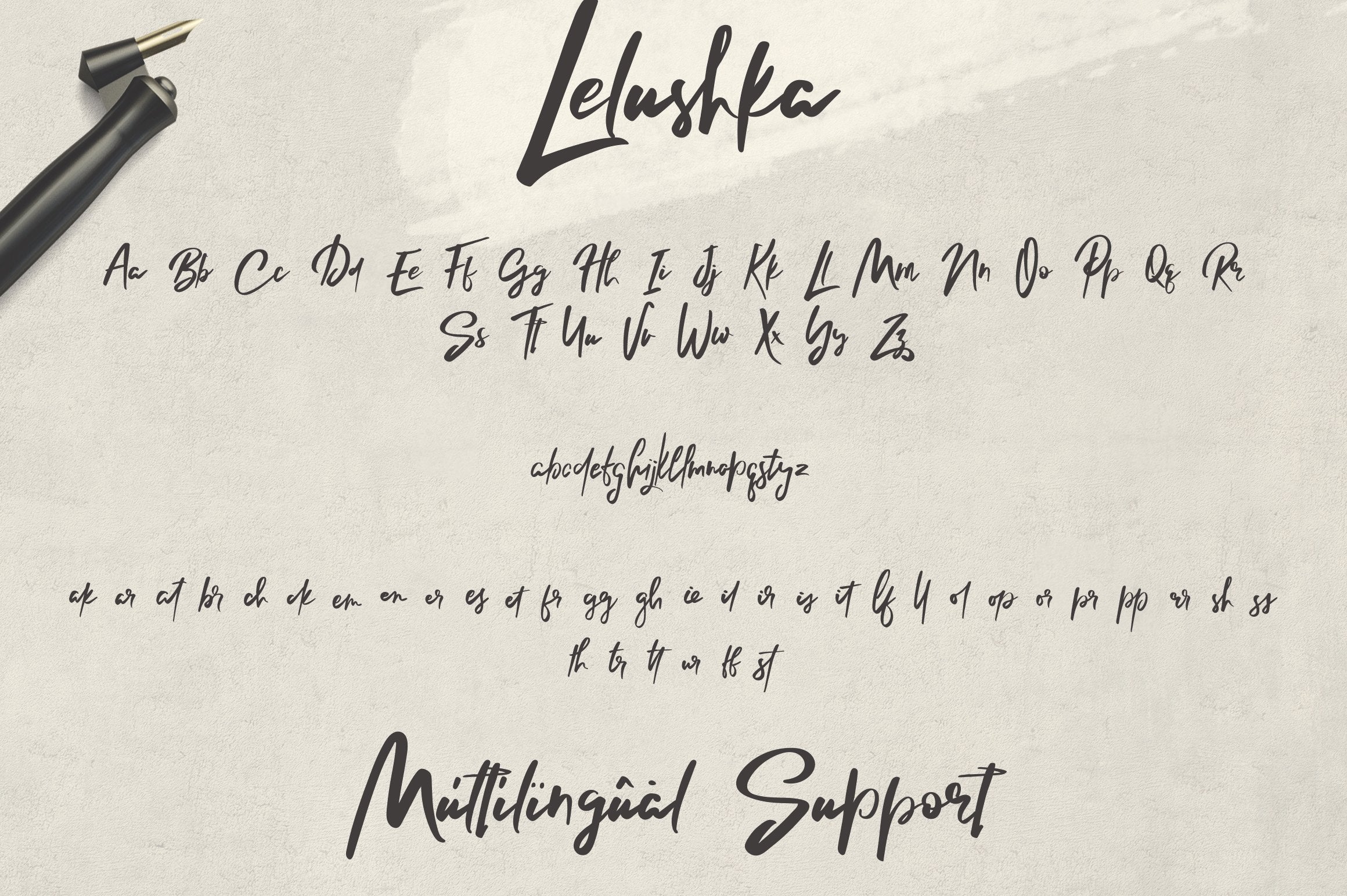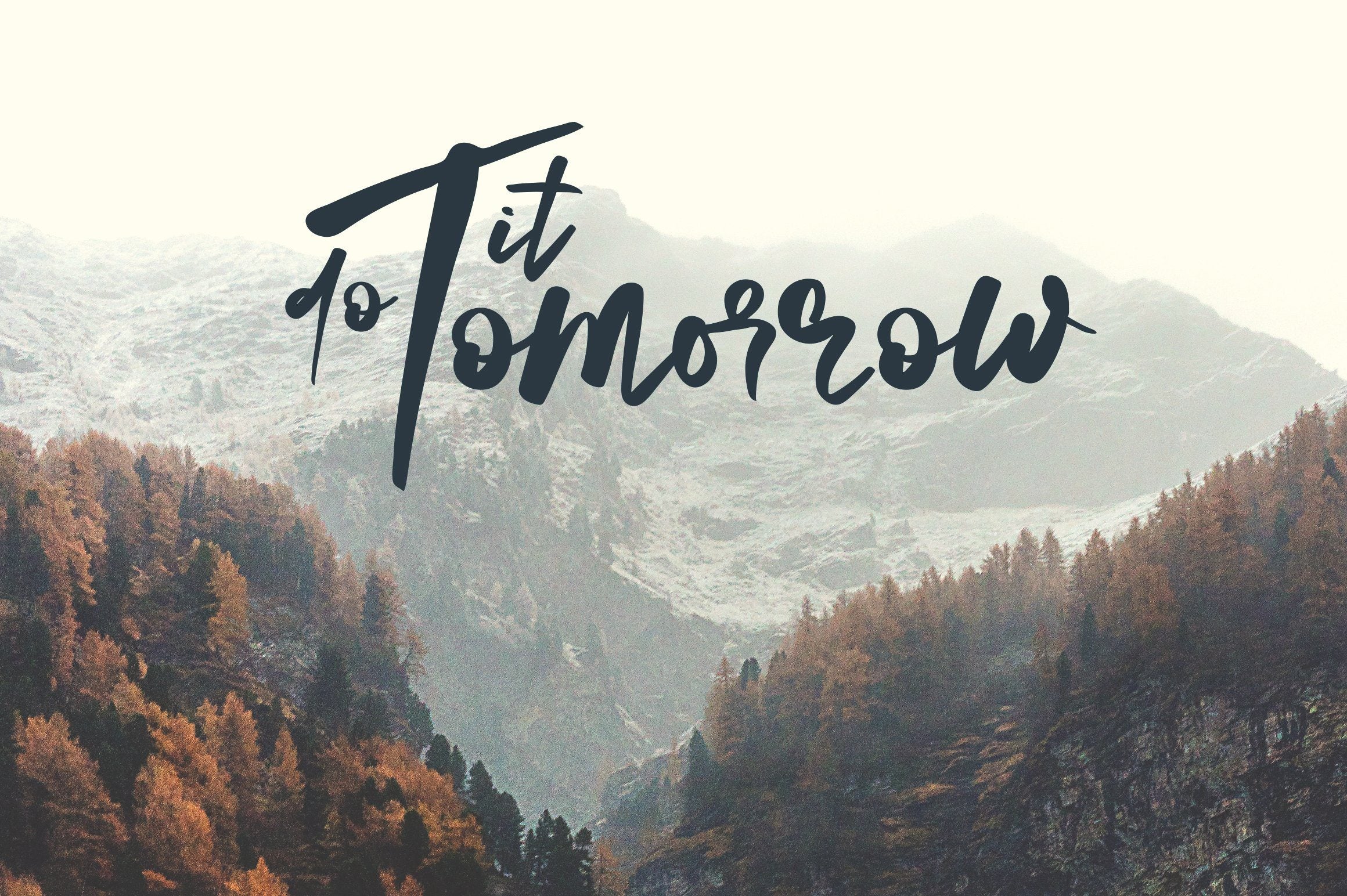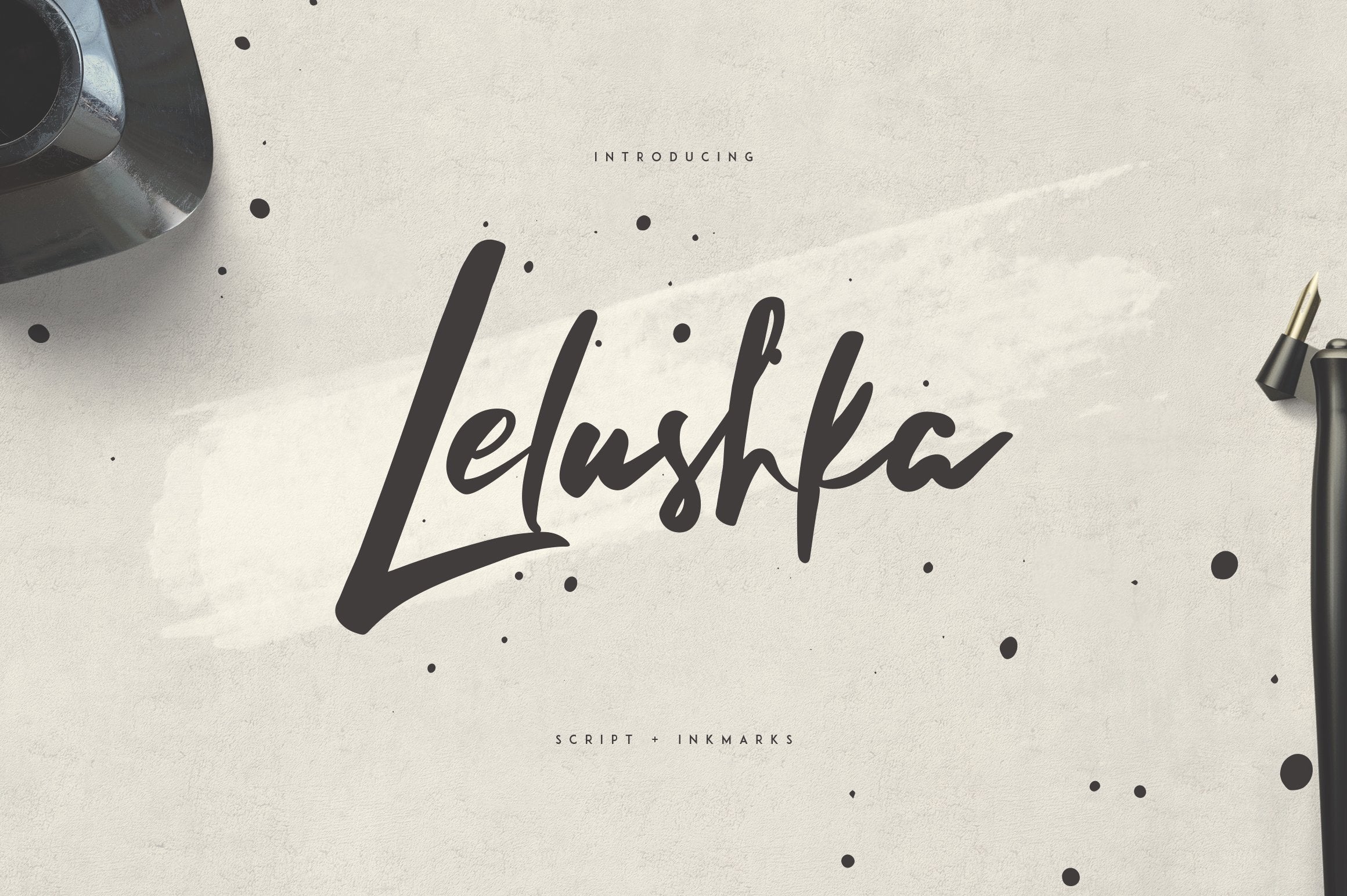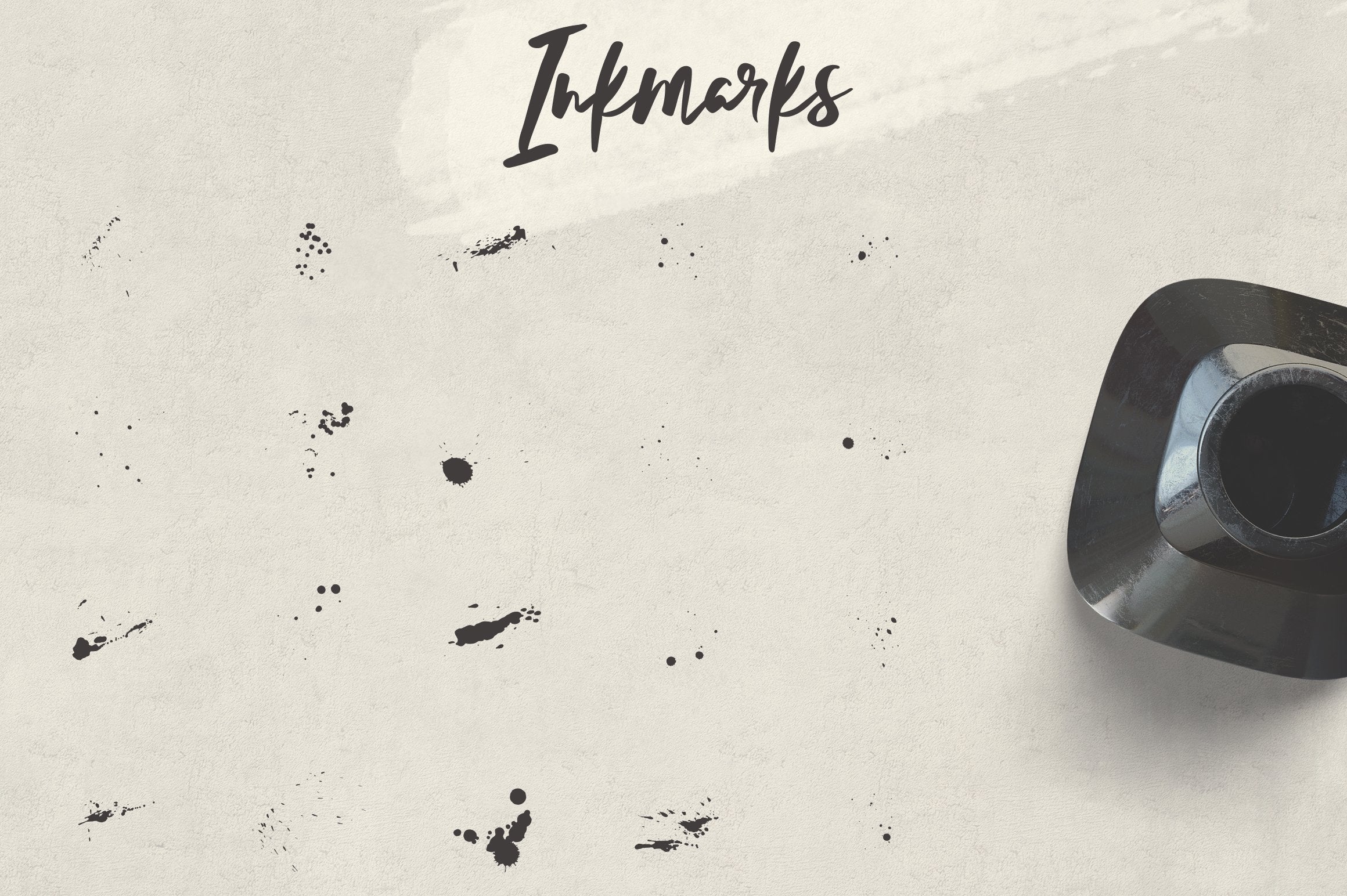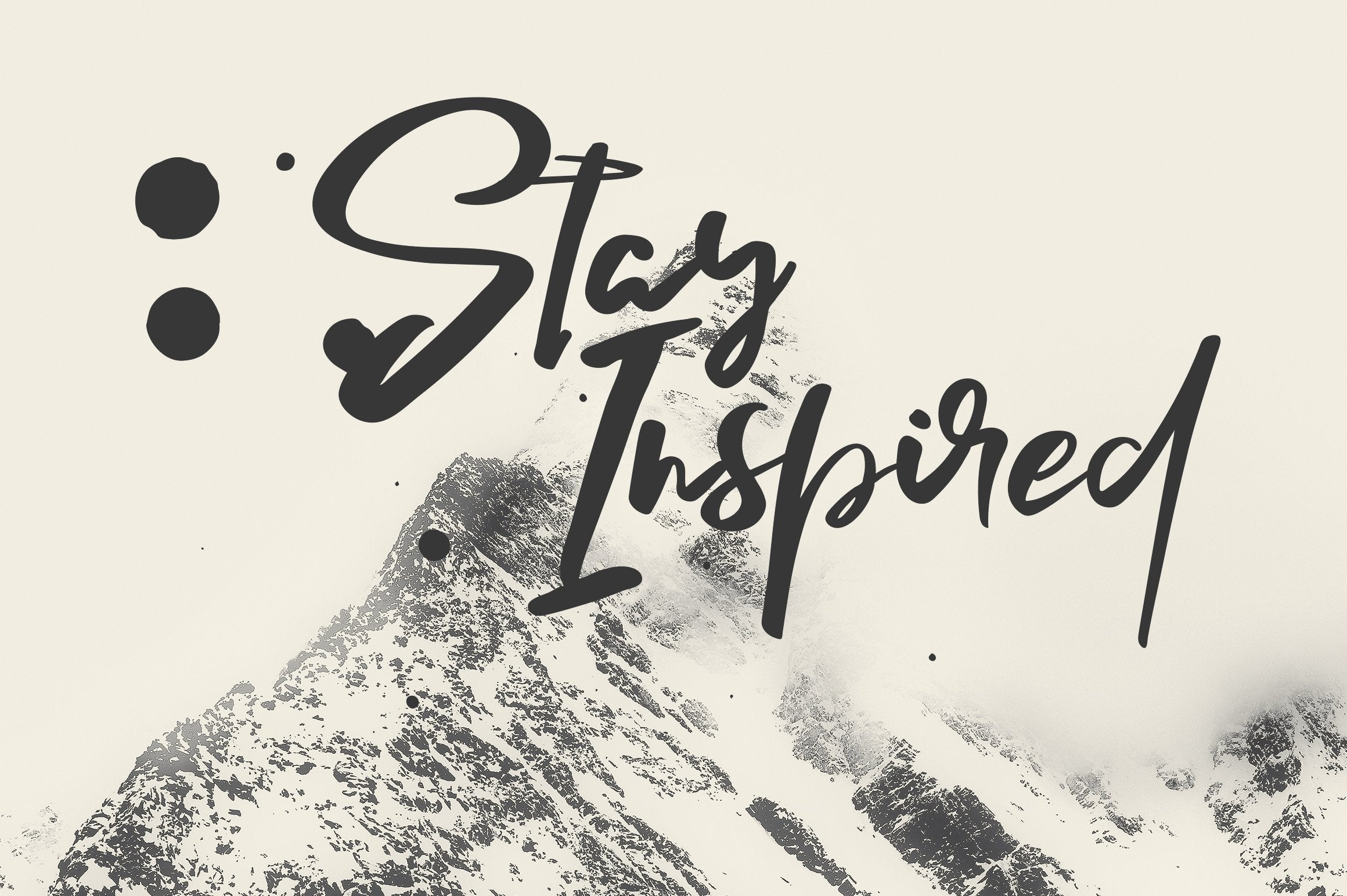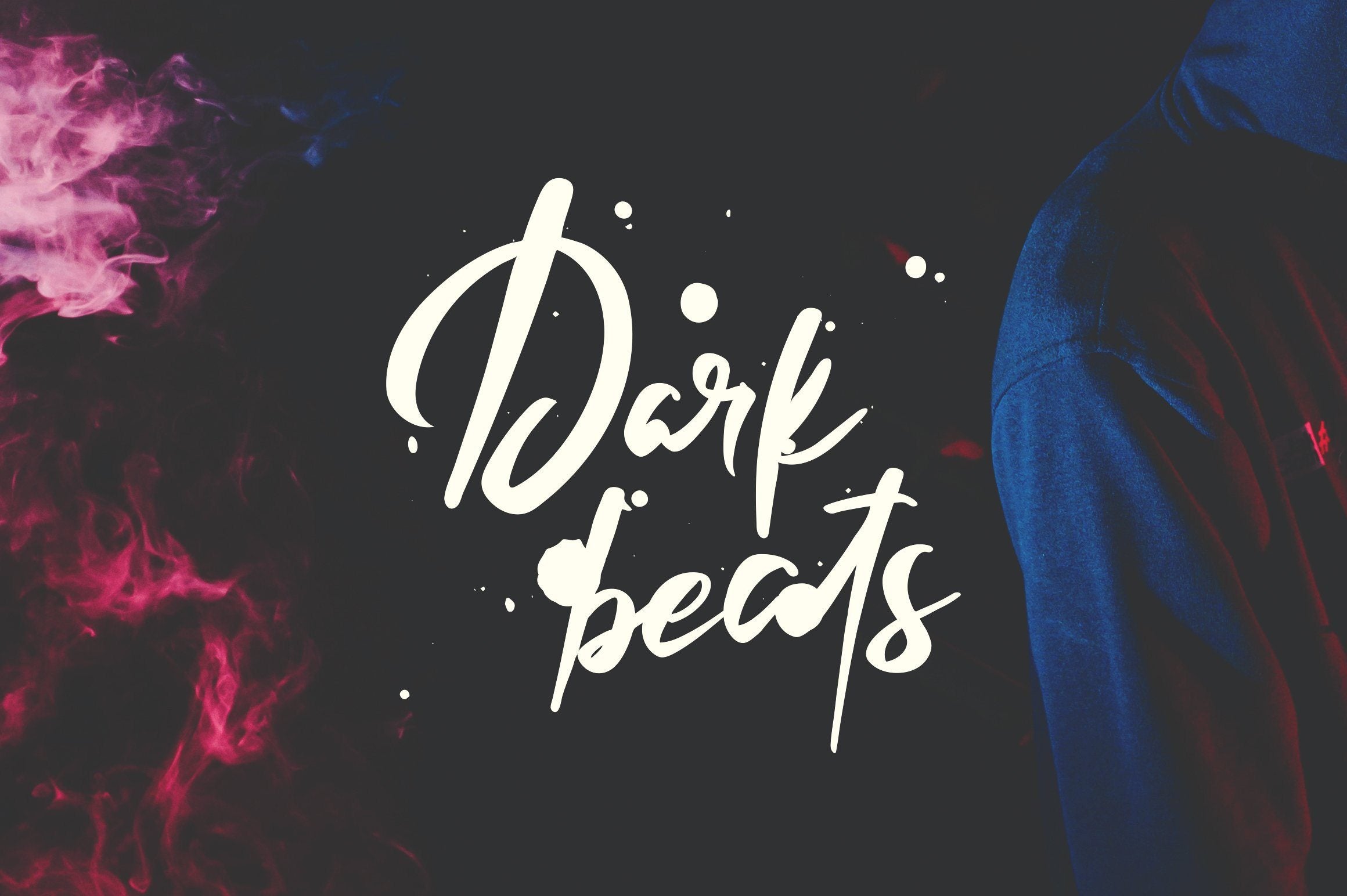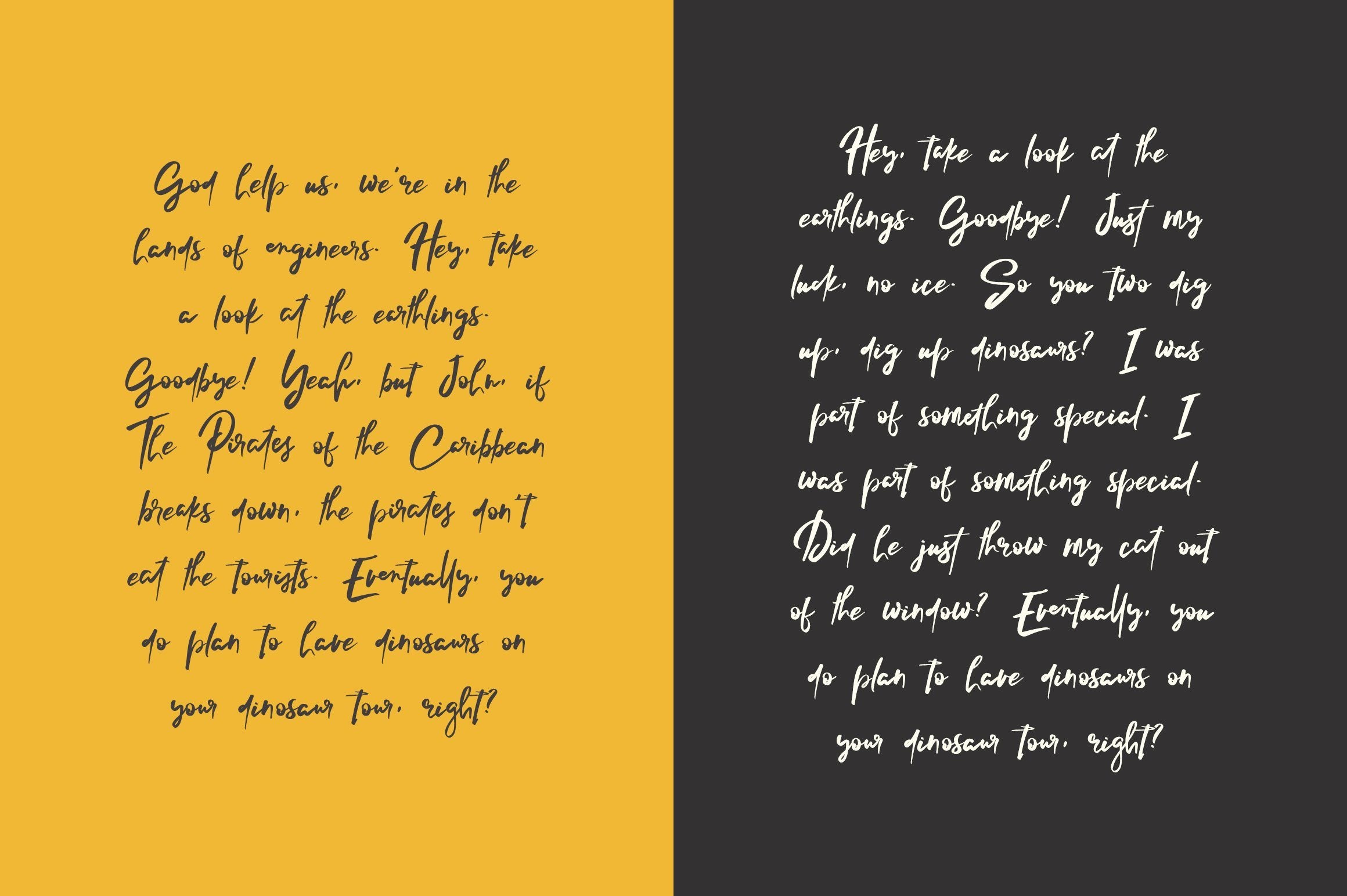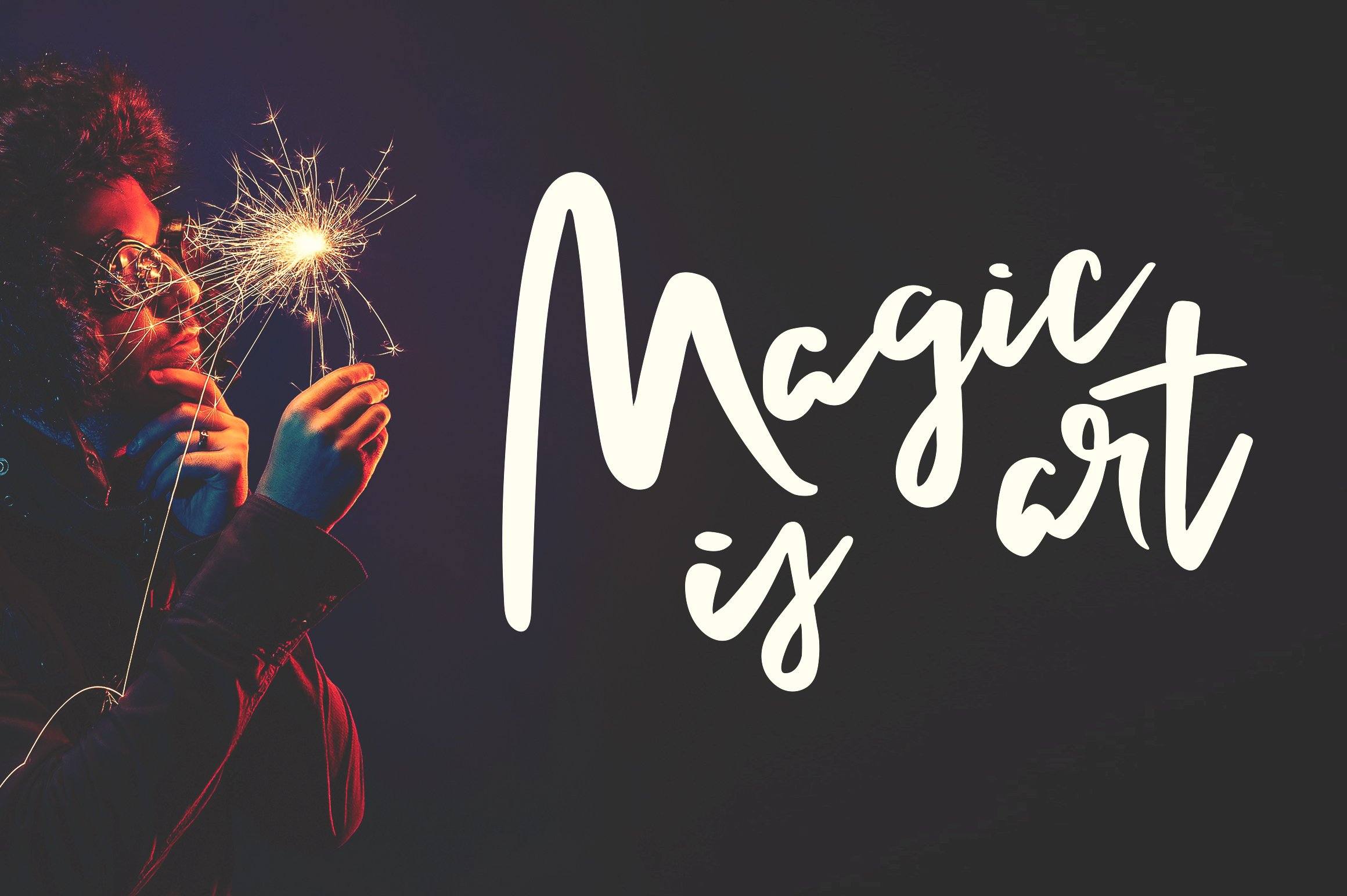
Lelushka Script + Ink marks
About Lelushka Script + Ink marks
Introducing Lelushka Script + Ink marks Lelushka is grunge, urban script with 20 ink marks and multilingual support. It’s a very versatile font that works great in large and small sizes. Lelushka is perfect for branding projects, home-ware designs, product packaging, magazine headers – or simply as a stylish text overlay to any background image. Uppercase,lowercase,numeral,punctuation & Symbol Multilingual Regular 20 Ink marks Ligatures Alternatives Feel free to contact me if you have any questions! Mock ups and backgrounds used are not included! Thank you! Enjoy!